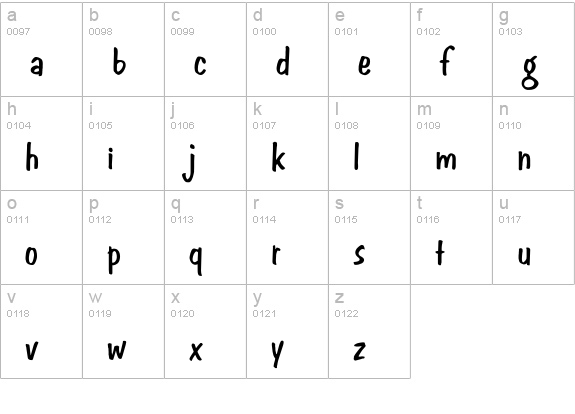
The OPTIAction-Brush font is a dynamic and energetic typeface that exudes a sense of action and movement. With its bold strokes and fluid lines, this font is perfect for conveying a sense of speed and excitement in your designs. Whether you're working on a sports-themed project, a high-energy advertisement, or a dynamic logo, OPTIAction-Brush will help you make a bold statement. The best part is that OPTIAction-Brush is available for free download at FontsMarket.com. This means you can easily add this eye-catching font to your collection without spending a dime. Don't miss out on this opportunity to enhance your designs with the striking and impactful OPTIAction-Brush font. Download it today and unleash your creativity!